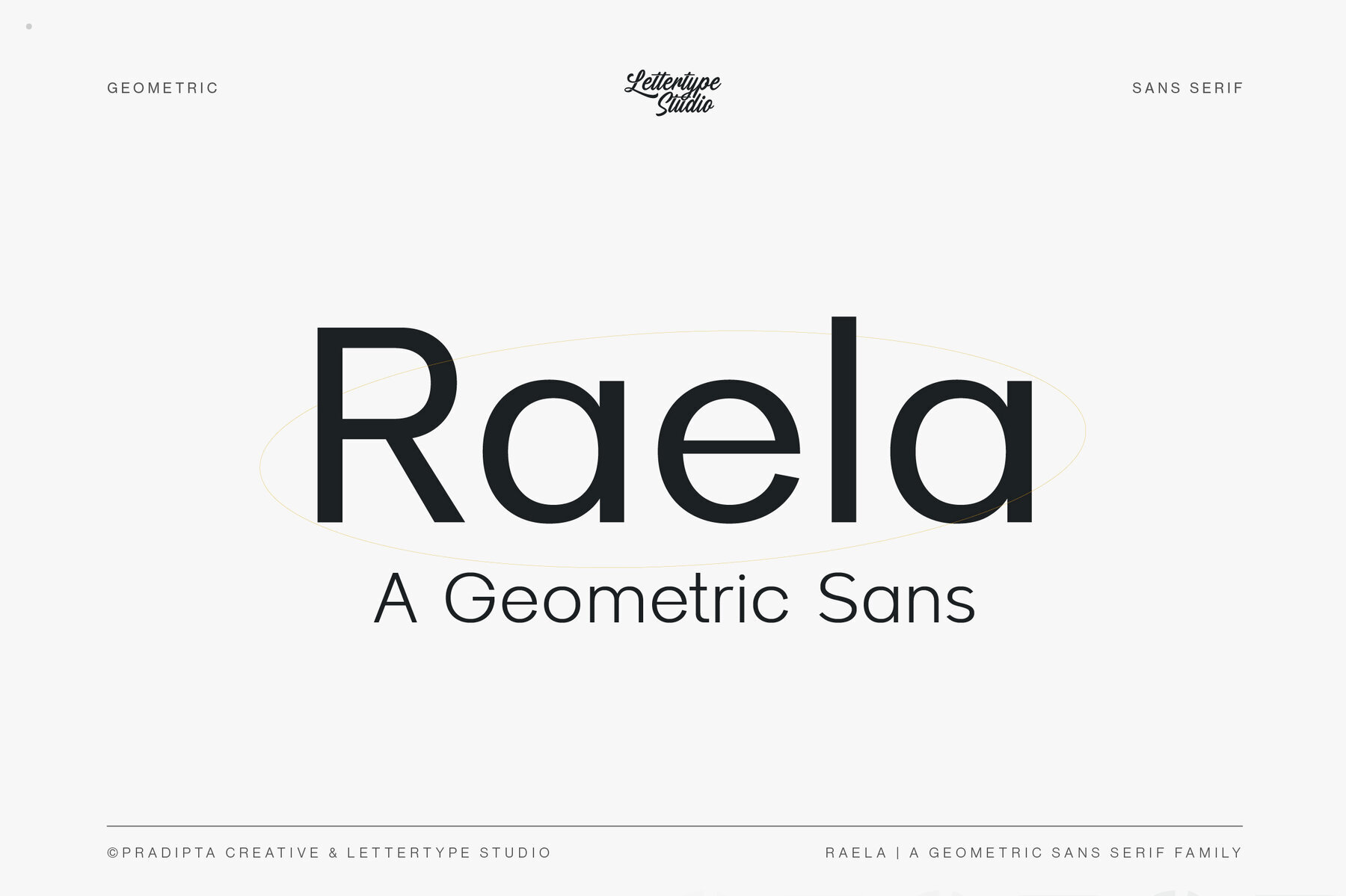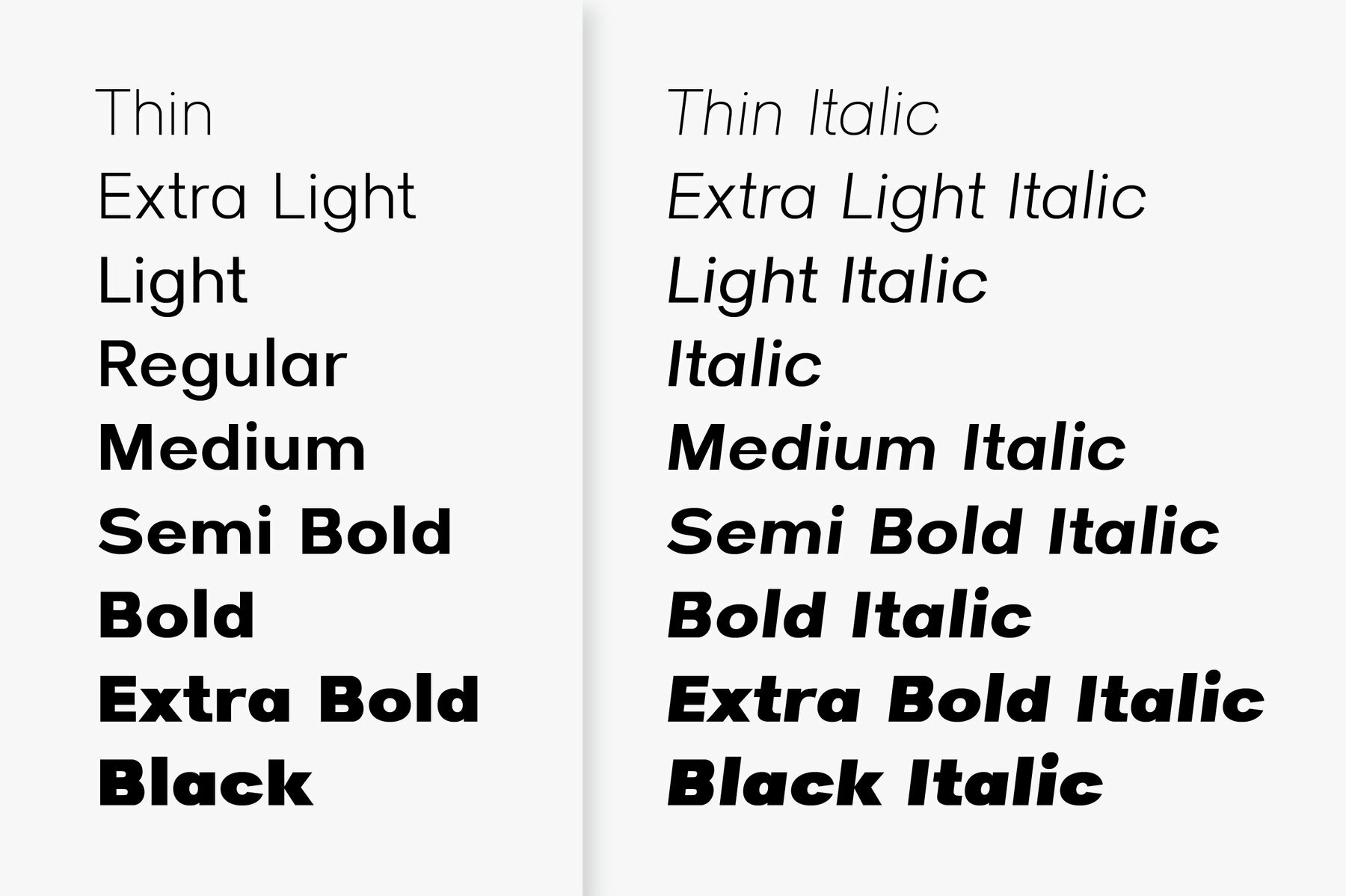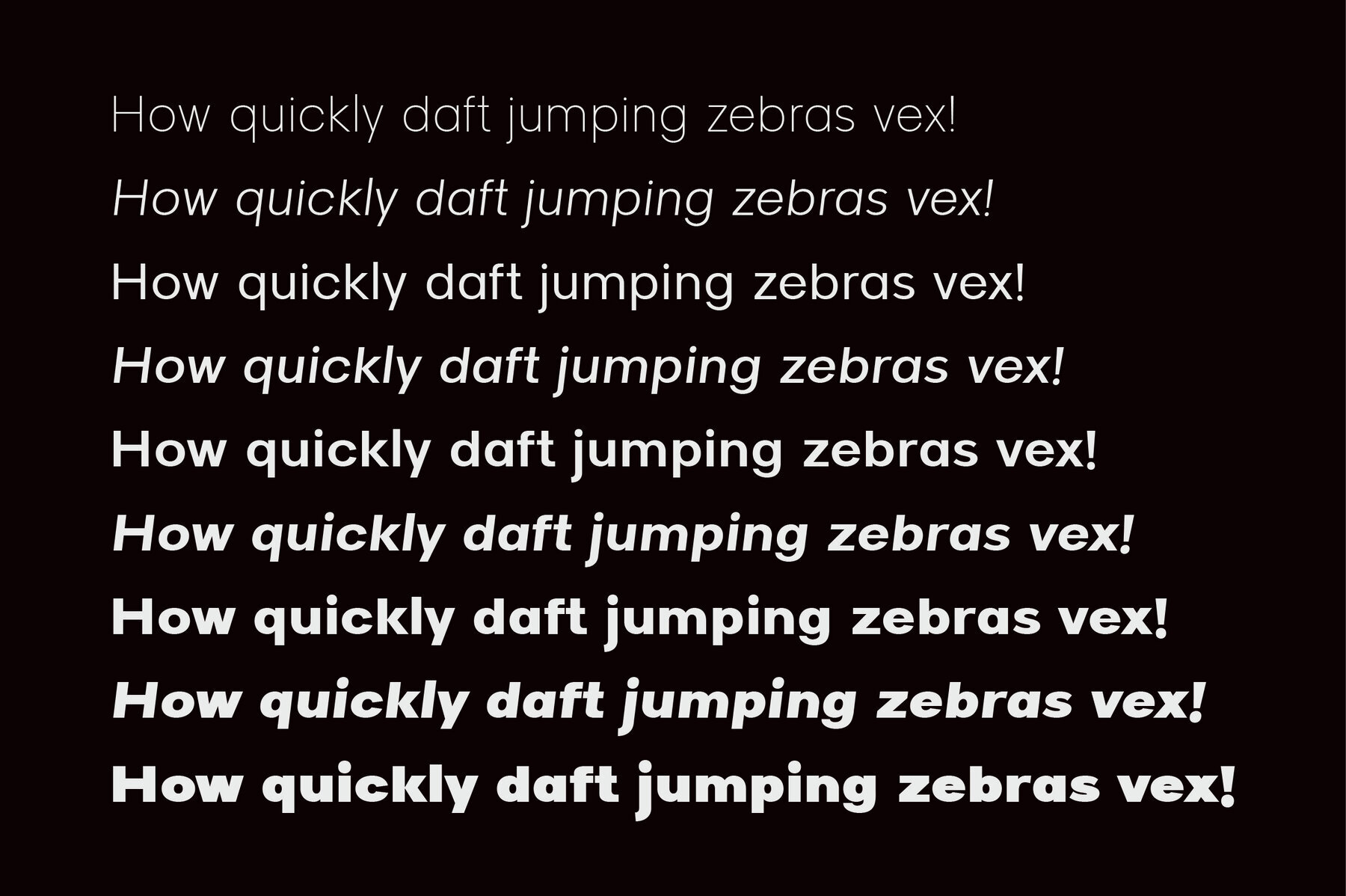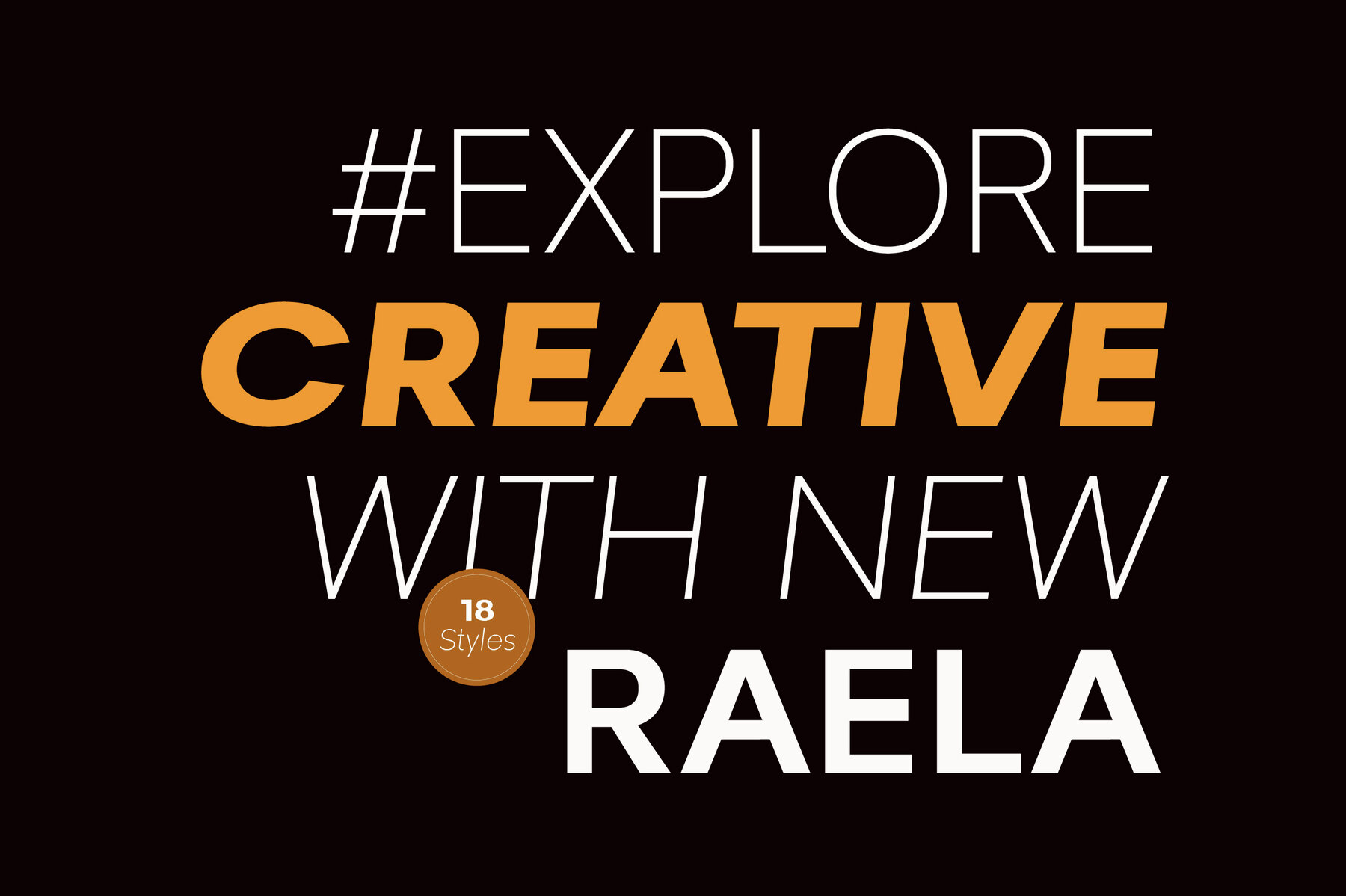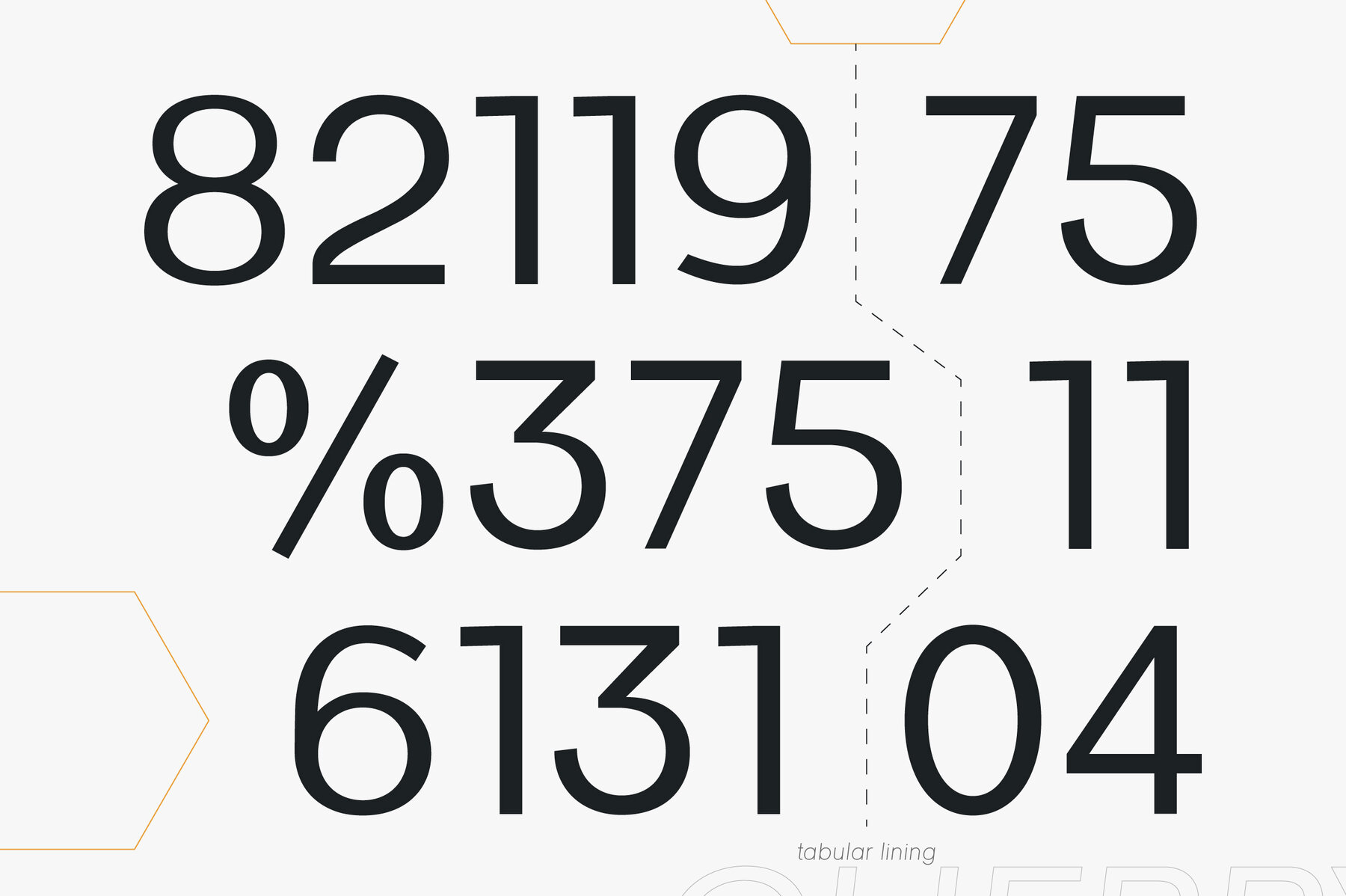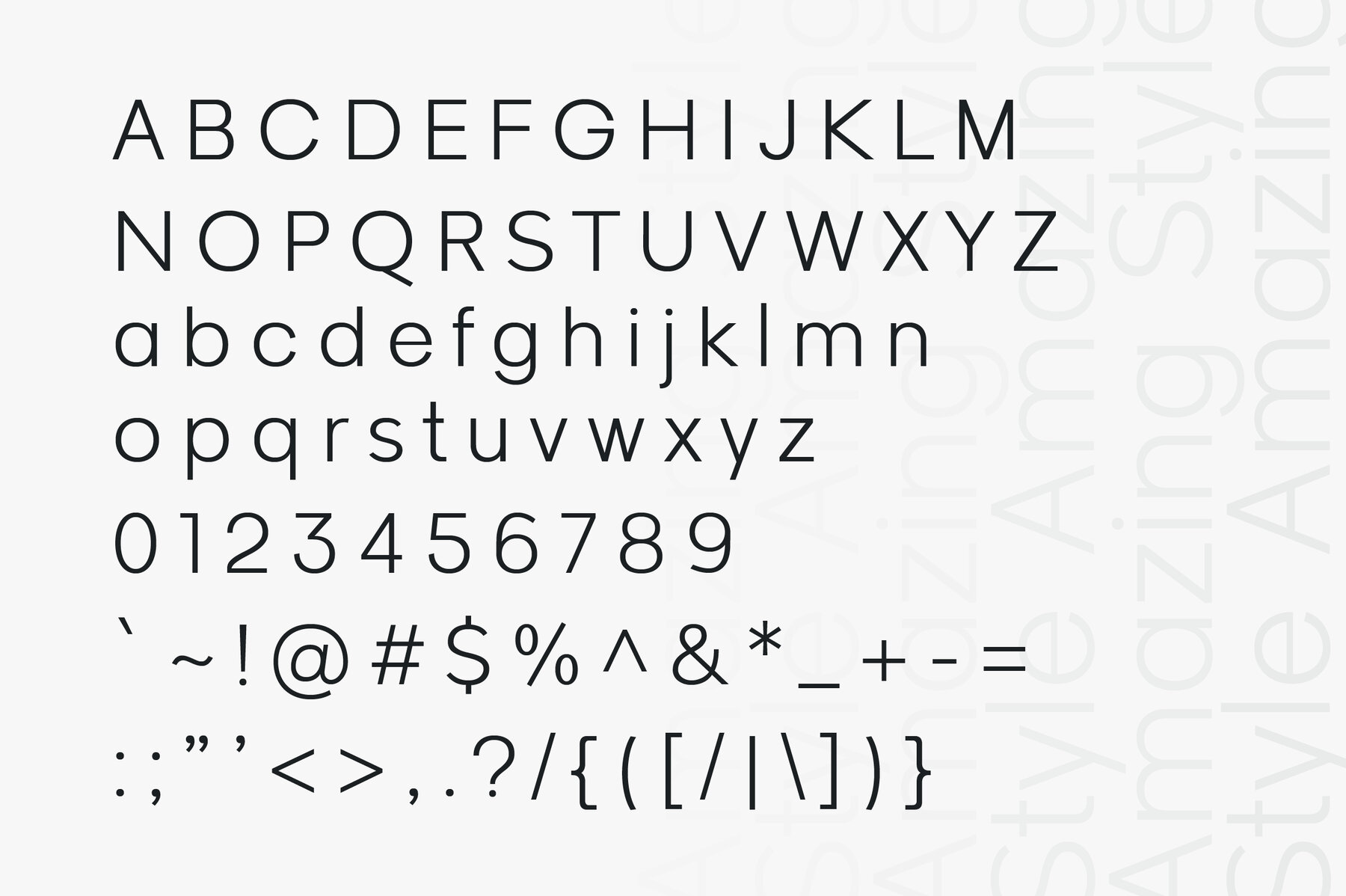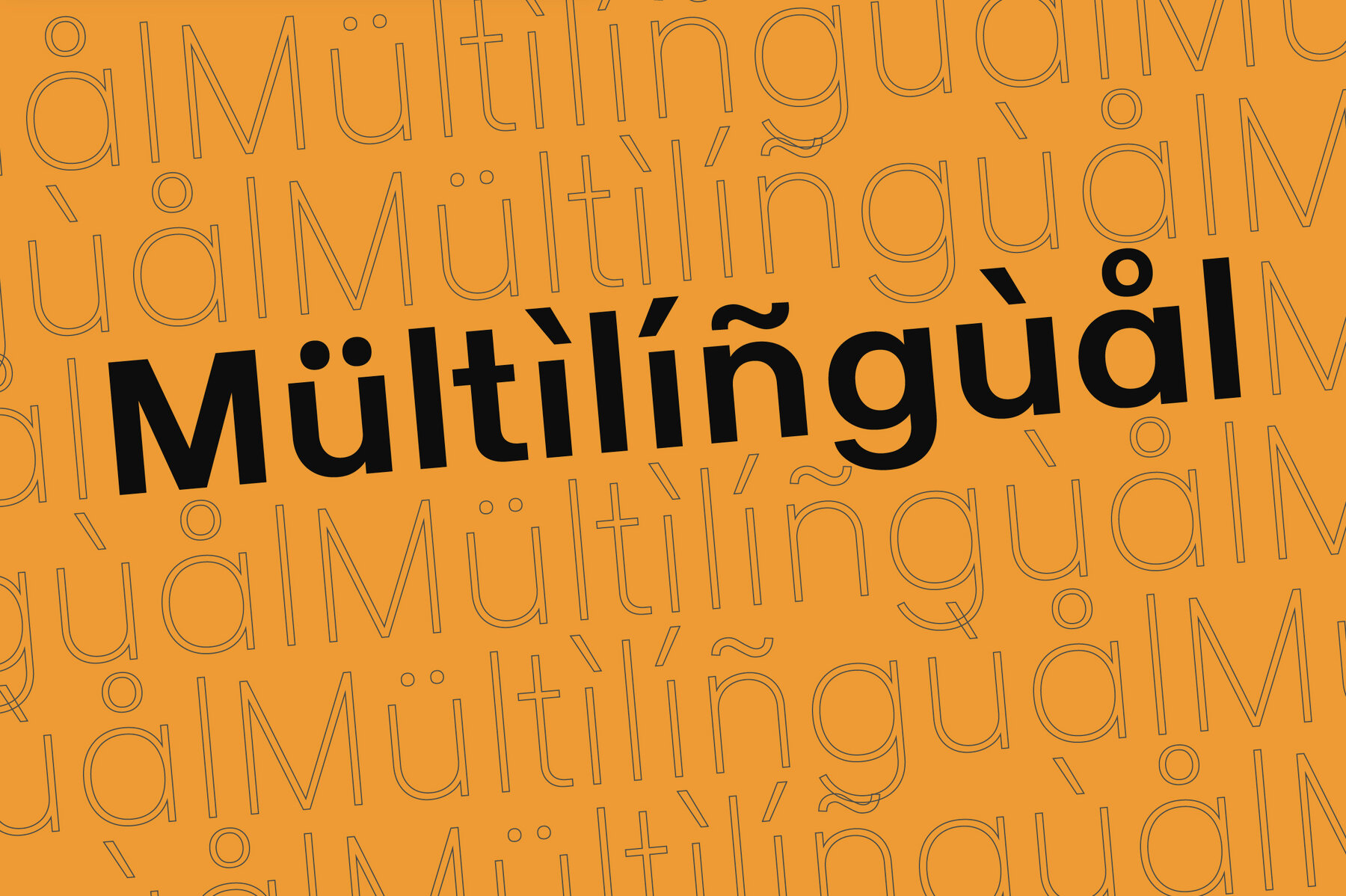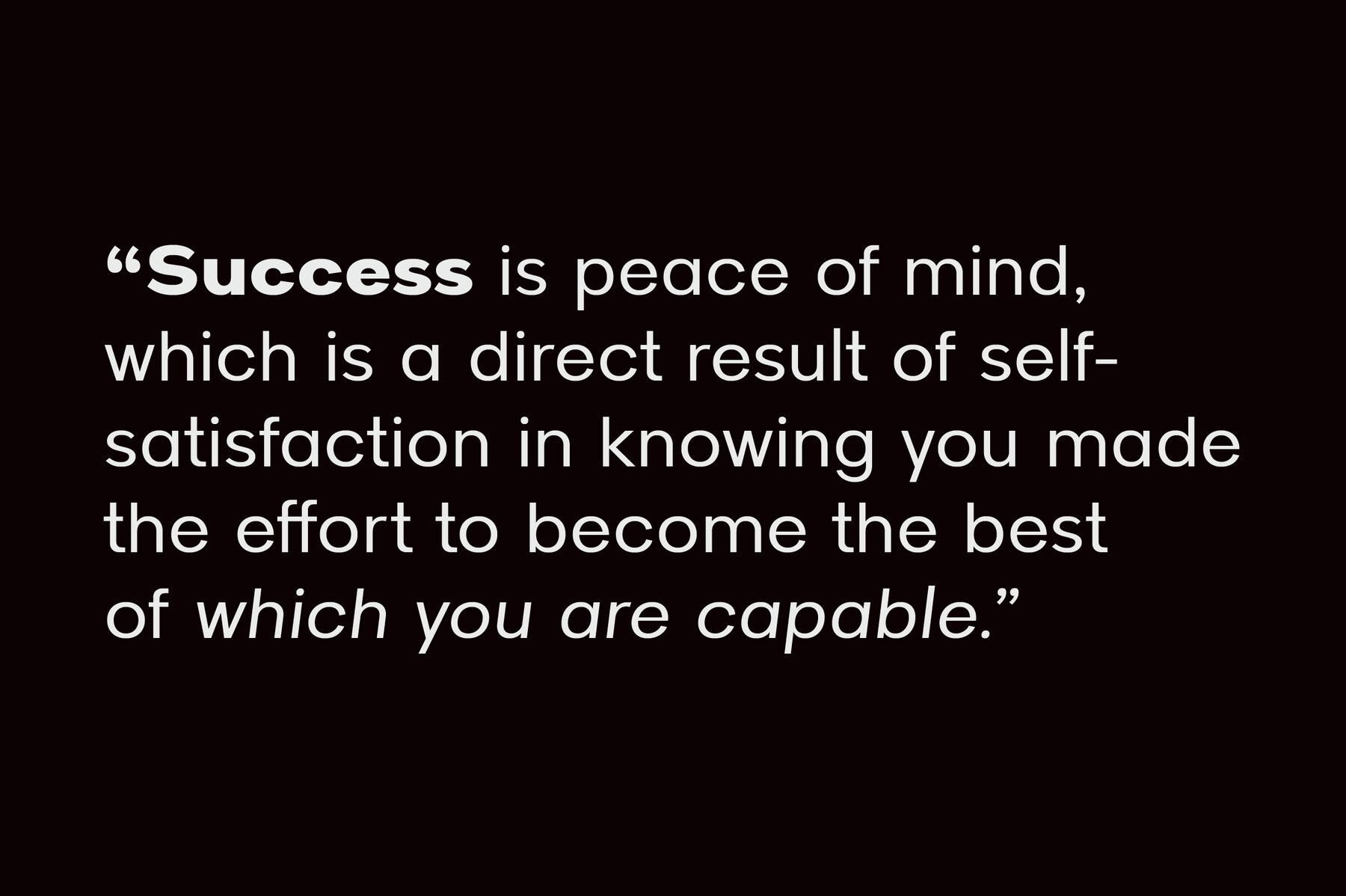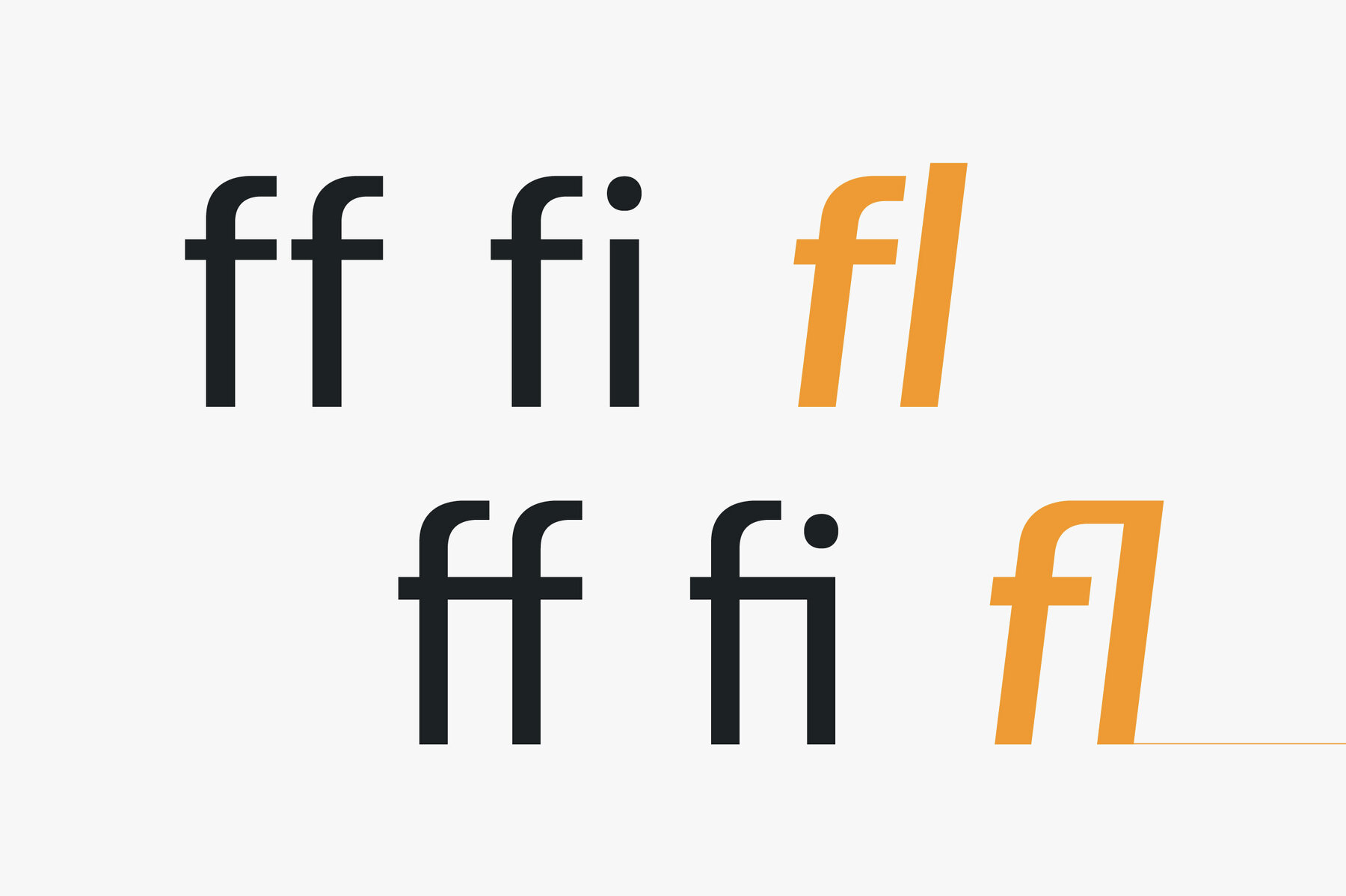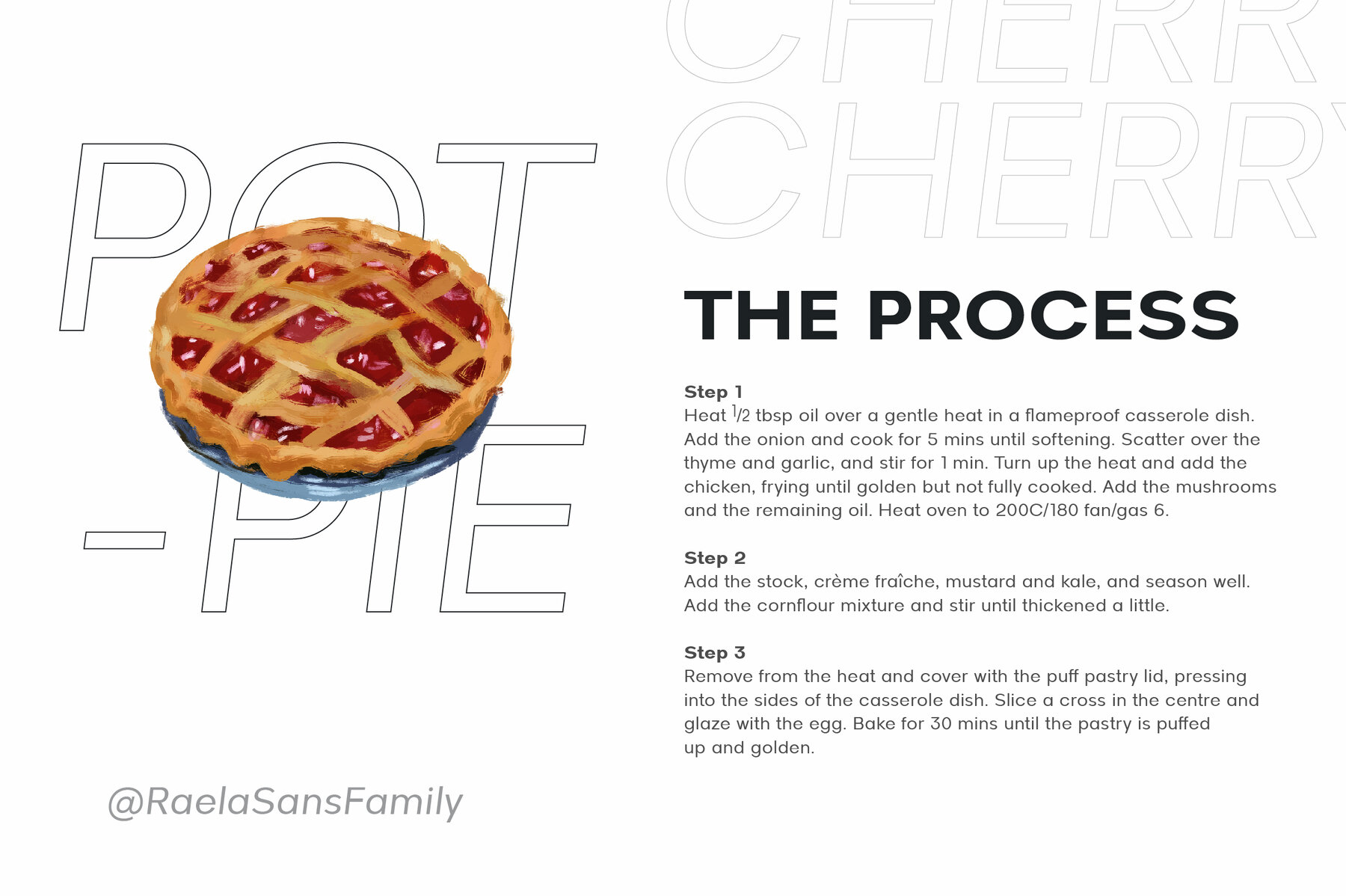
Raela Font
Raela is a geometric sans-serif typeface that blends regularity and simplicity with a bold personality. Designed for optimal readability and versatility, its proportional width, flat apex, closed aperture, and straight-cut stroke ends underscore its contemporary appeal. With 18 weights from Thin to Heavy, Raela includes OpenType features like Stylistic Alternates and figure variations, such as fractions, tabular lining, numerator, and denominator. It also supports broad Latin language coverage, catering to diverse language requirements. Features: This typeface offers clean, modern options for designers across various applications. Ideal for branding, web design, packaging, and editorial layouts, Raela delivers exceptional readability and aesthetic appeal. Choose from bold and impactful to sleek and minimalist styles to keep your designs on-trend. Perfect for:Raela: A Geometric Sans-Serif Typeface